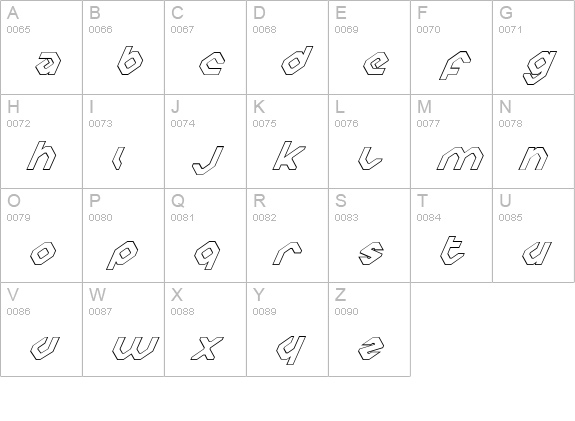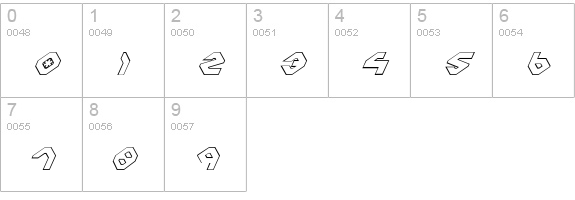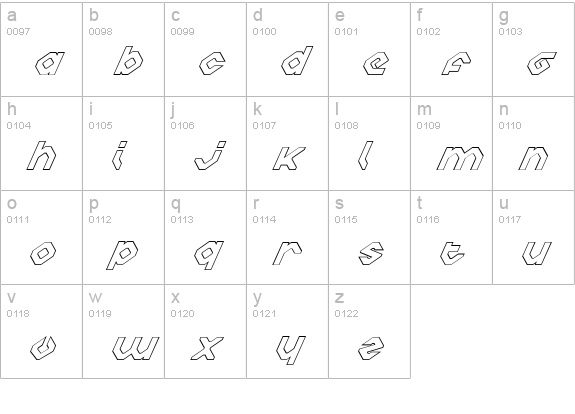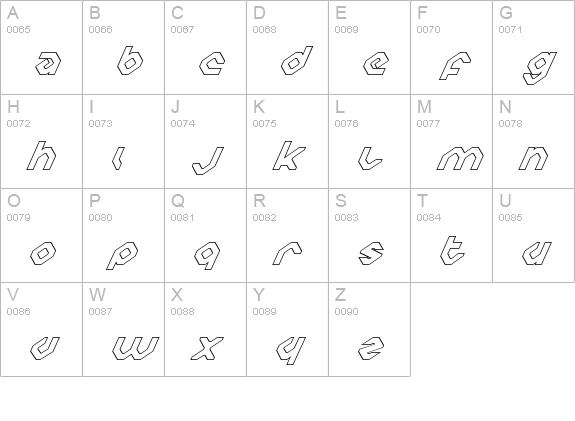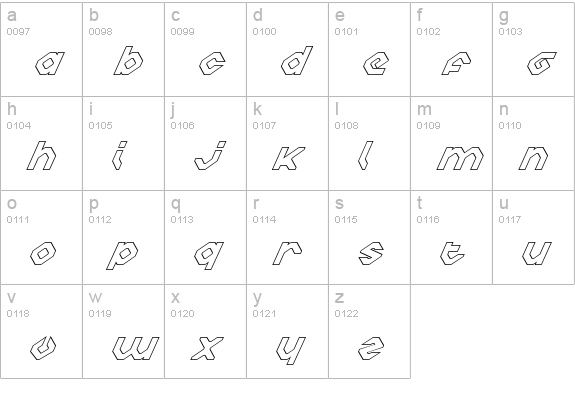
Charlie's Angles Italic Outline Font Details
Charlie's Angles Italic Outline is a distinctive, italic variant in the Charlie's typeface family \xE2\x80\x94 well suited to design and typography projects.
Introducing Charlie's Angles Italic Outline font, a sleek and modern typeface designed to add a touch of sophistication to your projects. This font features clean lines and sharp angles, exuding a sense of elegance and style. Perfect for adding a contemporary flair to your designs, whether for branding, invitations, posters, or social media graphics. The Charlie's Angles Italic Outline font is versatile and eye-catching, making it a great choice for both digital and print applications. Its bold yet refined appearance will surely make your text stand out and grab attention. Best of all, this font is available for free download at FontsMarket.com, allowing you to easily access and use it in your creative projects without any cost. Don't miss out on the opportunity to enhance your designs with the Charlie's Angles Italic Outline font today!